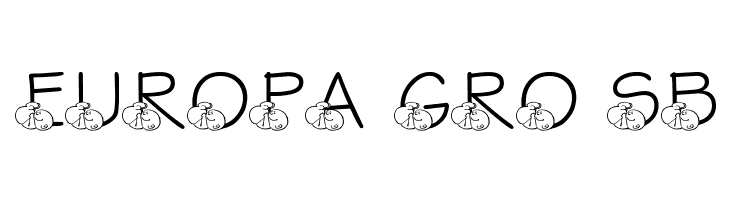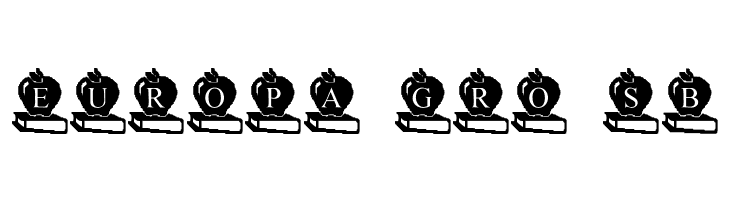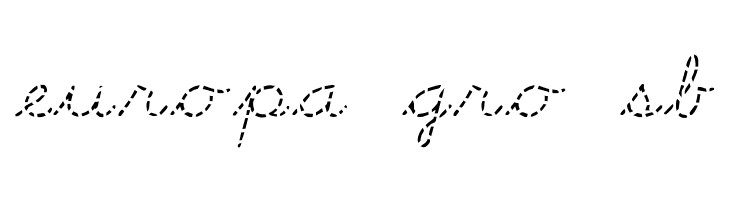
A whimsical font featuring letters adorned with baby shoes, perfect for playful designs.
A playful font with baby illustrations accompanying each character, perfect for child-themed projects.
A playful, school-themed decorative font with apple and book motifs.
A playful, balloon-themed decorative font perfect for festive occasions.
A whimsical font with characters integrated with bat illustrations, perfect for themed designs.
A playful, cartoon-themed decorative font with bold characters.
A playful, bold font with cartoon piglet illustrations, perfect for fun and creative projects.
A playful, rounded font with cartoon piglet decorations, ideal for whimsical projects.
A bold, decorative font with pumpkin-themed embellishments for a festive look.
A playful dotted cursive font with bee illustrations, ideal for children's projects.